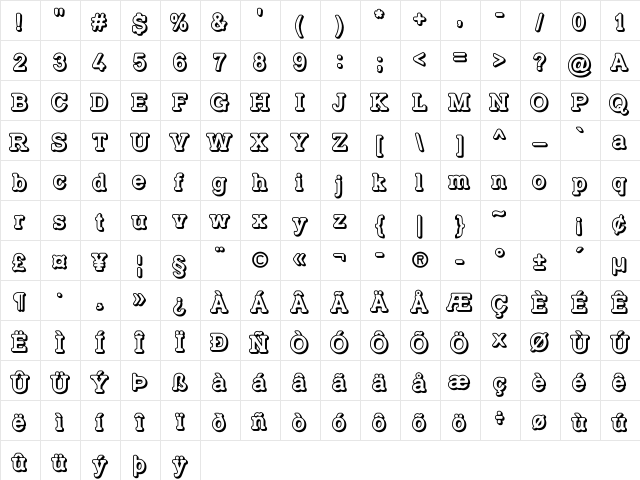
TypoSlab Irregular Shadowed Demo Regular
Design Context for TypoSlab Irregular Shadowed Demo Typeface
TypoSlab Irregular Shadowed Demo is built around its visual character rather than neutral utility — its distinctive forms are designed to make an impression at display sizes.
Font Pairing: Pair with a clean neutral sans-serif for body copy to let TypoSlab Irregular Shadowed Demo's character lead without overwhelming the composition.
Pro Tip: Treat TypoSlab Irregular Shadowed Demo as the centrepiece of your typographic hierarchy. One strong heading set in a decorative face can carry an entire layout.